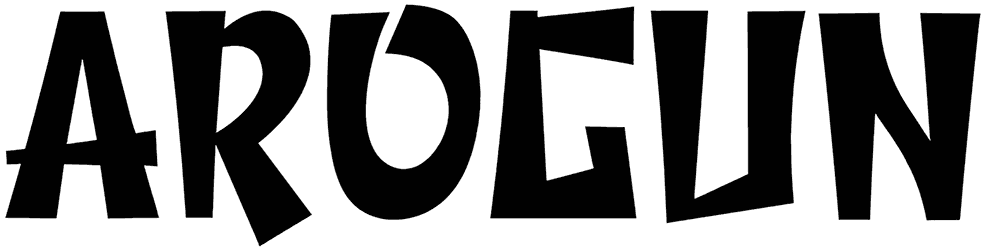
Arogun Font
Arogun is an all-caps script font that comes with three distinctive styles and looks very captivating. This graffiti font can be your reliable assistant in the process of designing high-end graphic content such as blog posts, movie brochures, applications, and the user interface of video games.